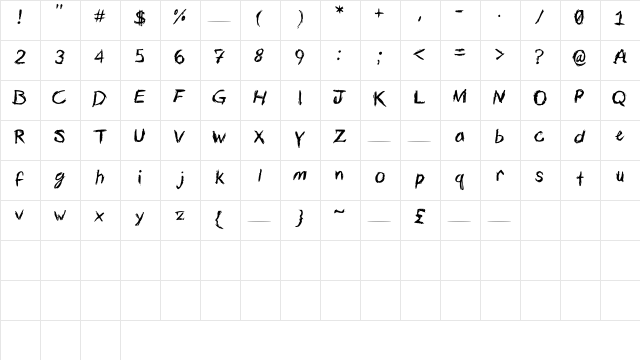
Calligstrophe Medium
Design Context for Calligstrophe Typeface
Calligstrophe is a composed and adaptable typeface that performs quietly and consistently across a wide range of design contexts.